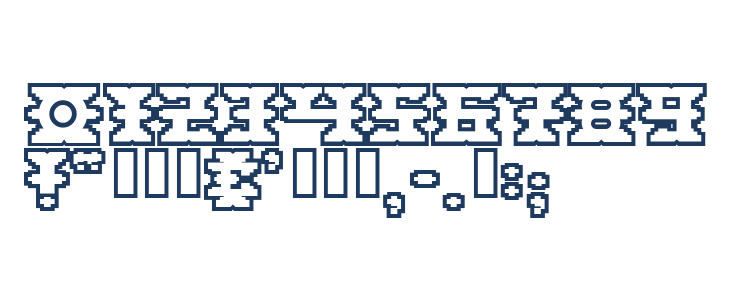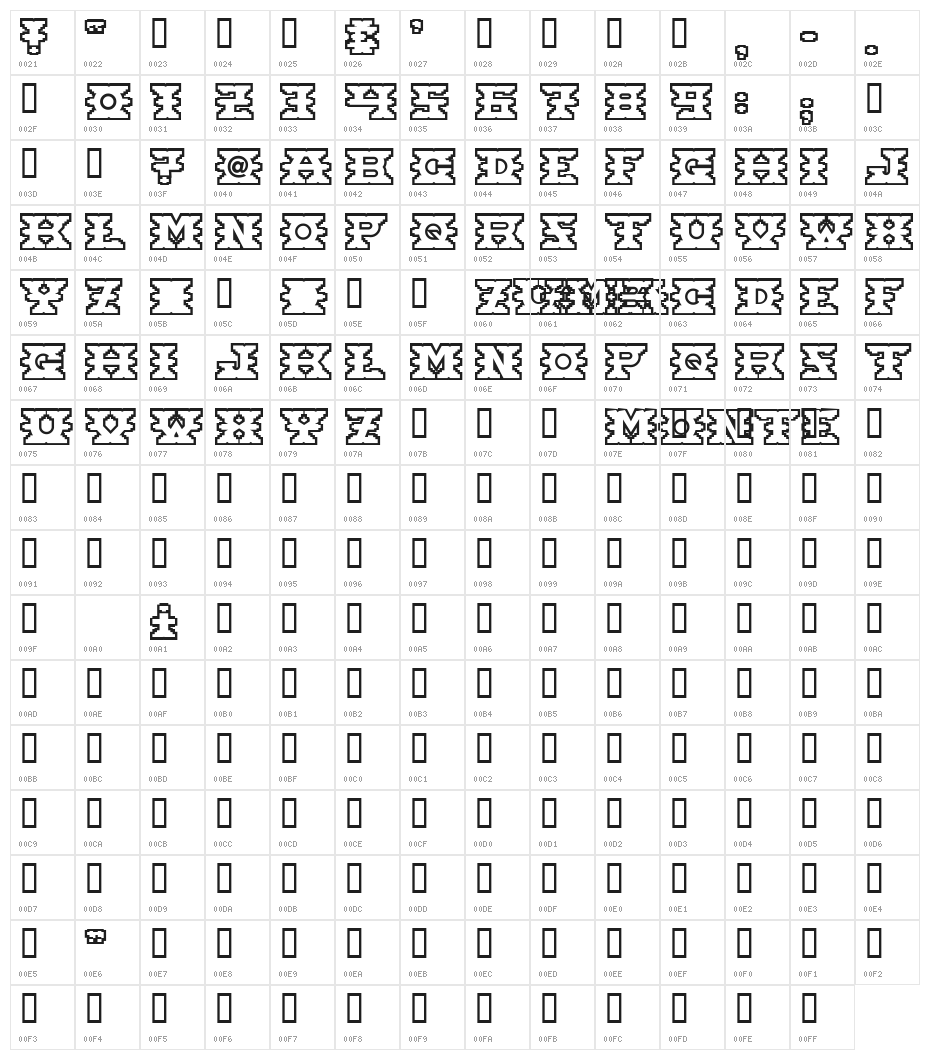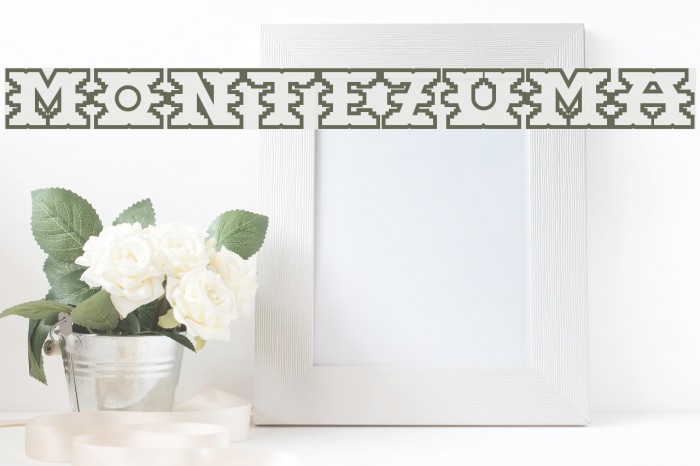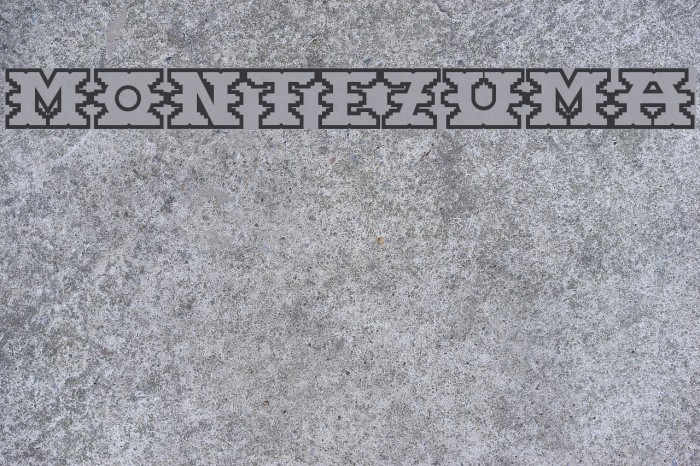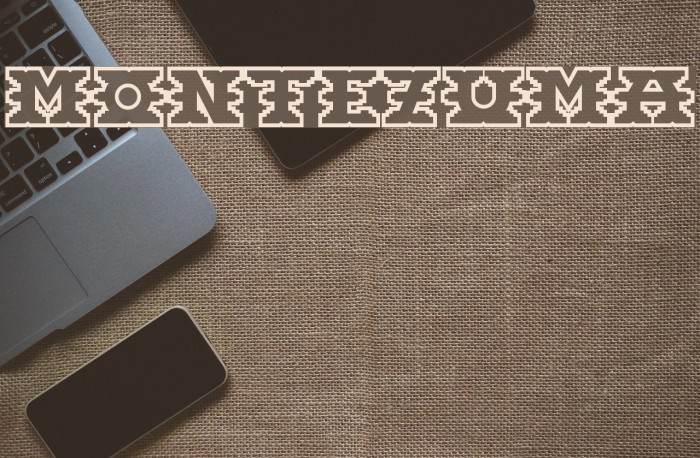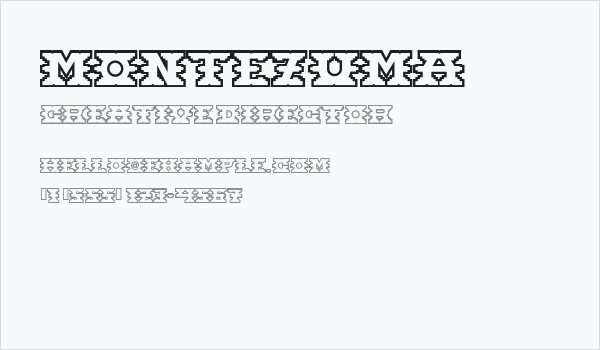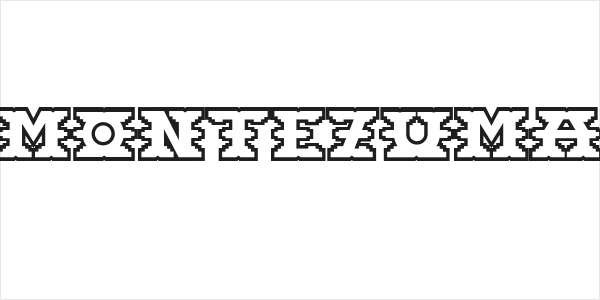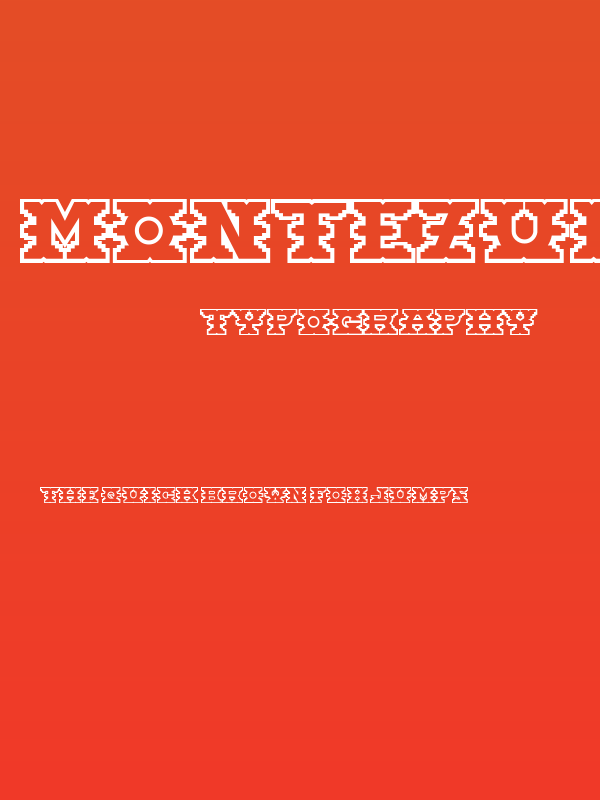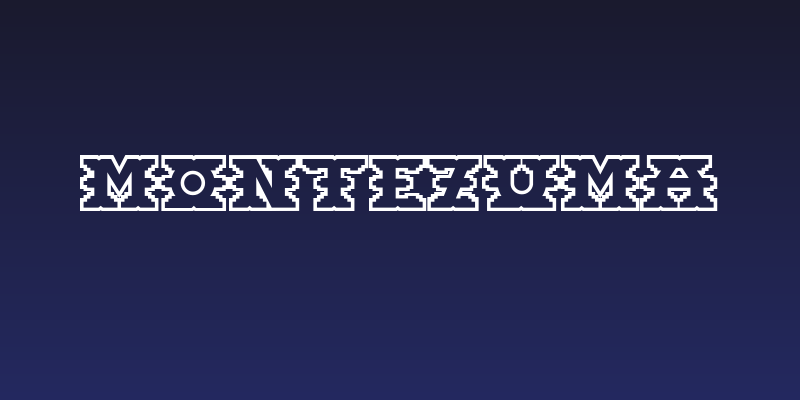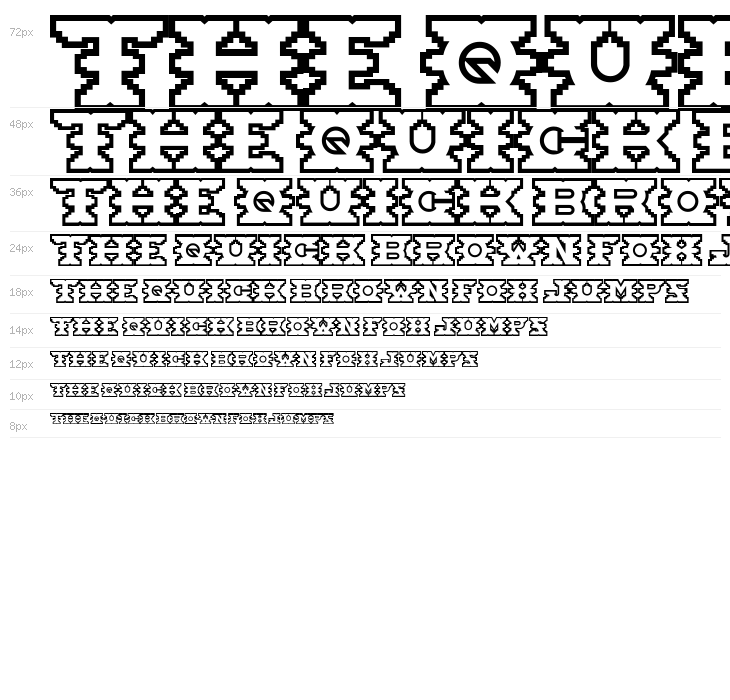
Montezuma Font
Montezuma Description
This font features a bold and decorative style with intricate geometric patterns embedded within each character. The design is reminiscent of ancient or tribal motifs, giving it a unique and striking appearance. Each letter is crafted with sharp angles and symmetrical shapes, creating a sense of rhythm and movement. The uppercase and lowercase letters maintain a consistent style, with the numbers and special characters following suit. This font's distinctive look makes it ideal for projects that require a bold statement or a cultural touch.
| Proposed Projects | Ideal for cultural event posters, themed invitations, logo designs, and artistic projects that require a bold and unique typeface. |